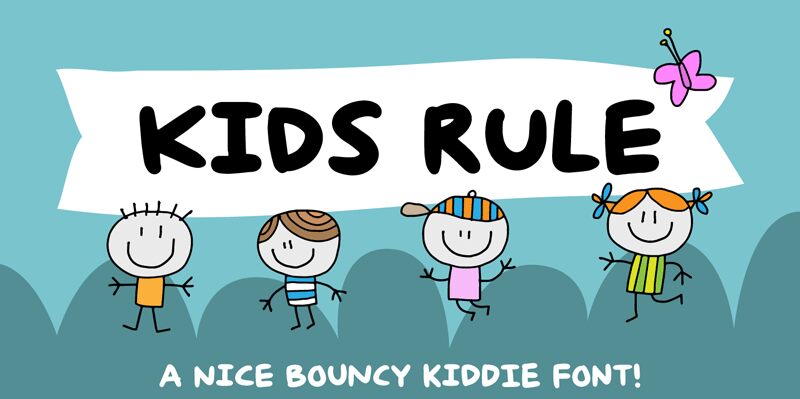
Kids Rule, a bold and playful display font designed by Pizzadude, is here to add a touch of whimsy to your projects. With its cartoon style and semi-expanded width, this font is perfect for children's books, birthday invitations, party decorations, and any design that needs a fun and lively vibe. Let Kids Rule bring out the inner child in your designs with its energetic presence and captivating charm. Get ready to make your projects stand out with this font that guarantees both readability and creativity.